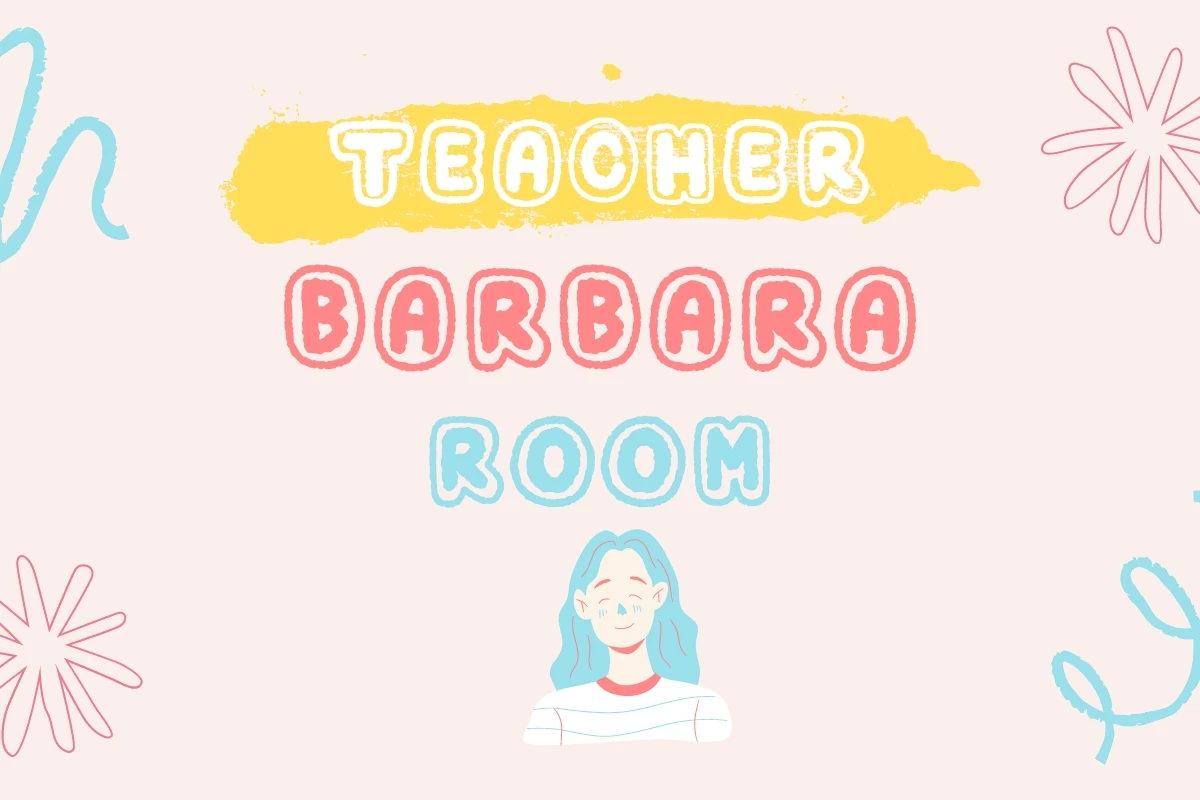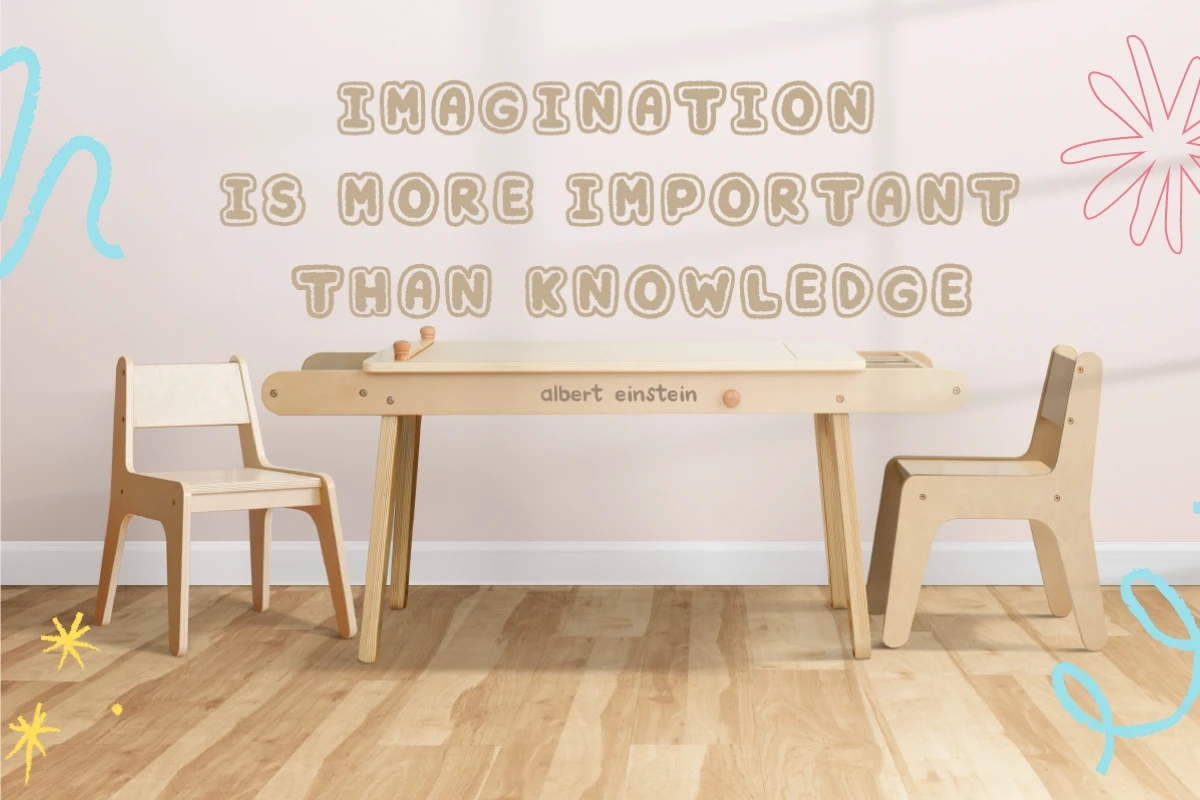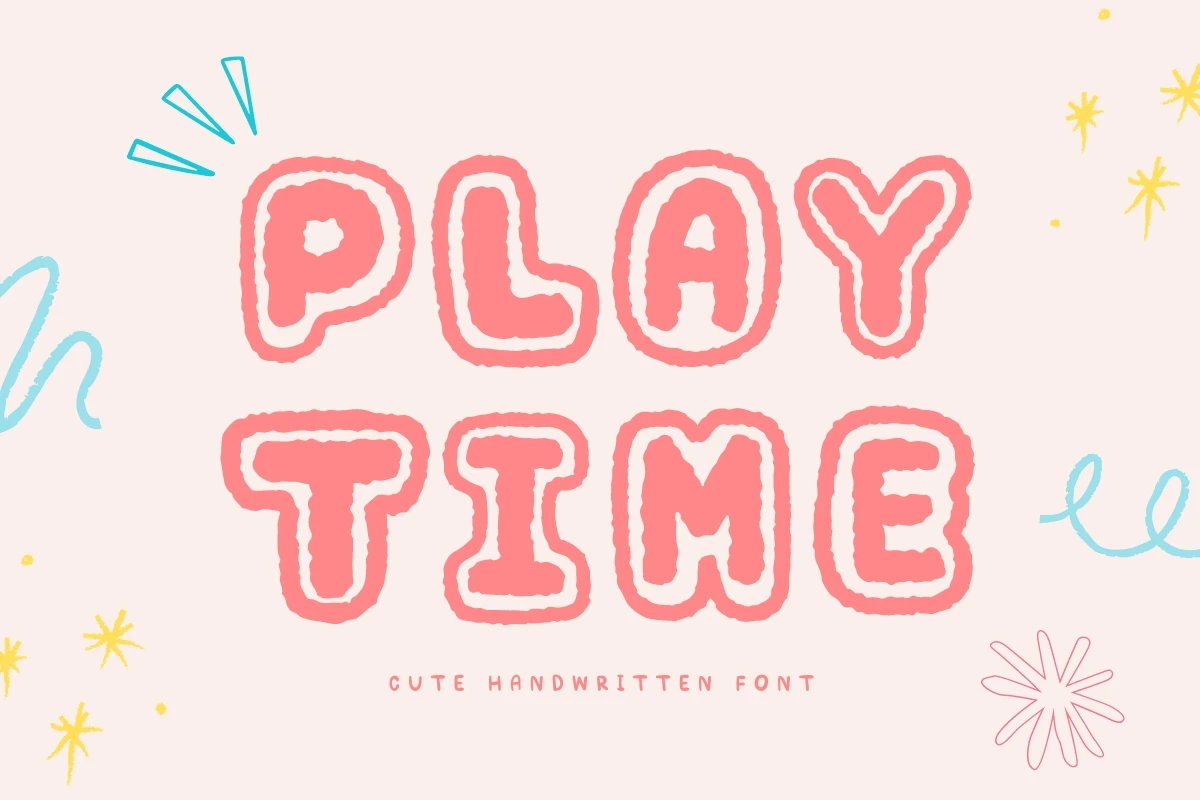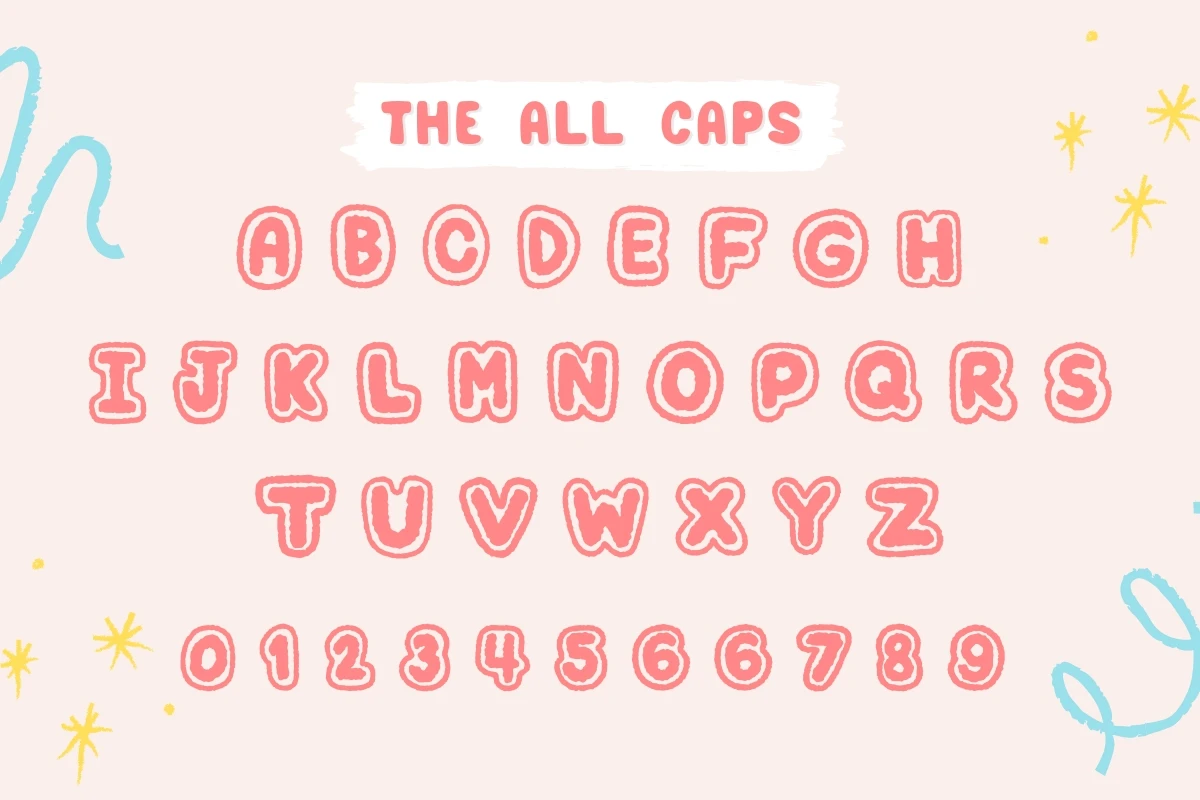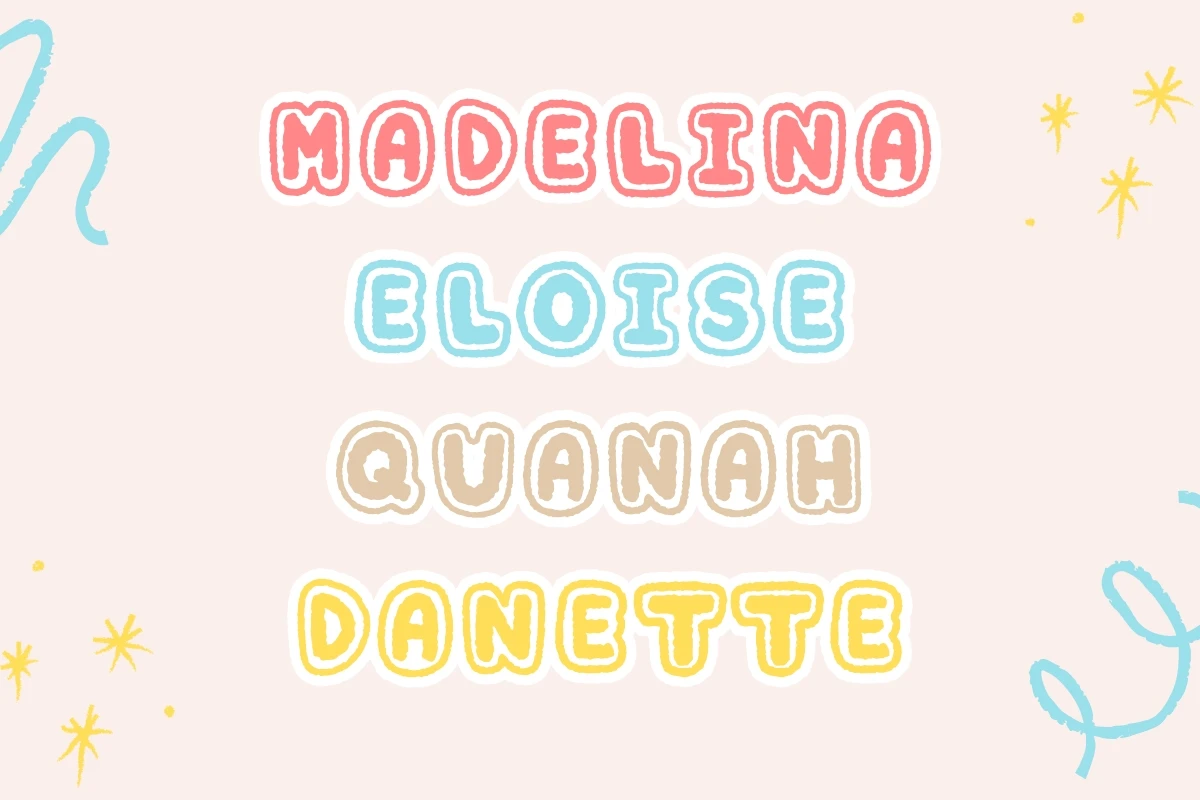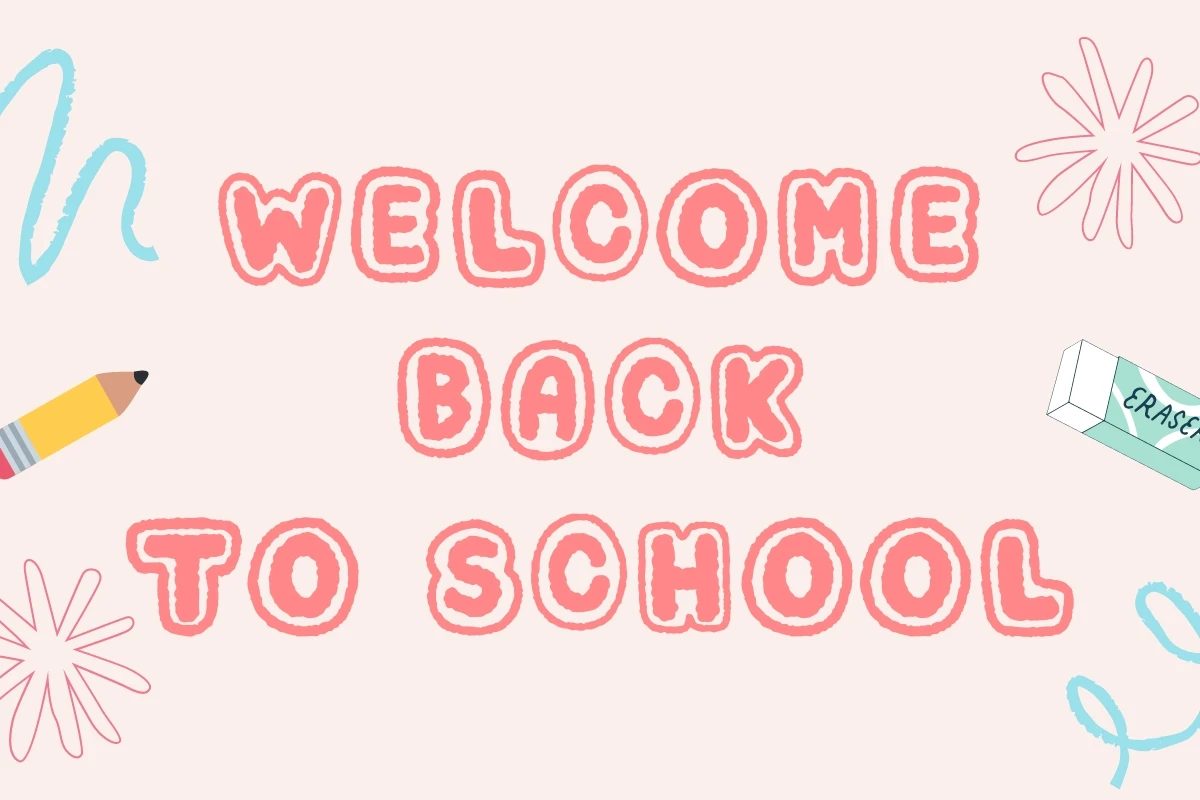
The Playtime Cute Display Font is a fun and playful typeface that is designed for children. With its friendly and approachable appearance, it is suitable for a variety of applications, including classroom decoration, childrens parties, games, and educational materials. You can use it on invitations, banners, and party favors to create a cohesive and playful look.